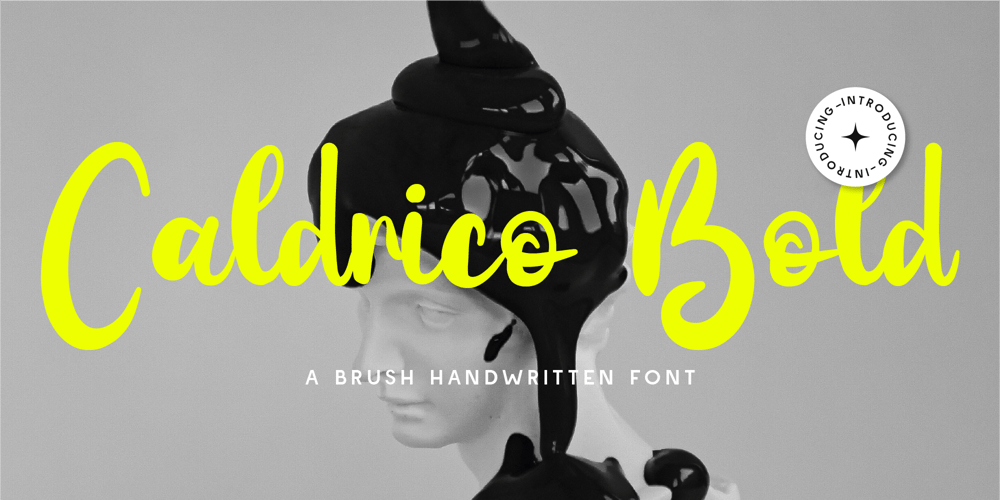
CF Caldrico Bold
CF Caldrico Bold font
CF Caldrico Bold Font Family was designed by Gilang Mei Nugraha, Frederik Aristaputra and published by Creatifont Studio. CF Caldrico Bold contains 2 styles and family package options. Caldrico Bold – A Striking Brush Handwritten FontUnleash the energy of Caldrico Bold, a high-impact brush handwritten font designed for those who dare to stand out. With its bold strokes, fluid movement, and expressive letterforms, this typeface brings raw personality and artistic flair to any project.Perfect for branding, streetwear, advertising, product packaging, social media, and edgy editorial designs, Caldrico Bold exudes confidence and creativity. The handcrafted brush texture adds a natural yet rebellious vibe, making your words feel alive with motion and style.Why Choose Caldrico Bold?⚡ Bold & Expressive: Eye-catching brush strokes that demand attention.🎨 Handcrafted Energy: A perfect mix of natural flow and urban edge.🔥 Versatile & Impactful: Ideal for logos, posters, album covers, and more.🖋 Authentic Brush Texture: Organic strokes that bring life to your designs.Make a statement with Caldrico Bold—a font that refuses to be ignored. Download now and add unstoppable energy to your creative projects! 🚀🎨A SUMMARY OF WHAT’S INCLUDED:- Standard Character A-Z, a-z, 0-9, Punctuation & symbols- Regular and Italic- Works on PC & Mac- Simple installation- Accessible in Adobe Creative Suite (Ai, Ps, Id, etc.) even work on Microsoft Word.- PUA Encoded Characters – Fully accessible without additional design software.🌟If you come across any issues or notice anything we might have overlooked while using this product, please feel free to reach out to us. We greatly value your feedback as it helps us enhance and refine our products. Thank you!